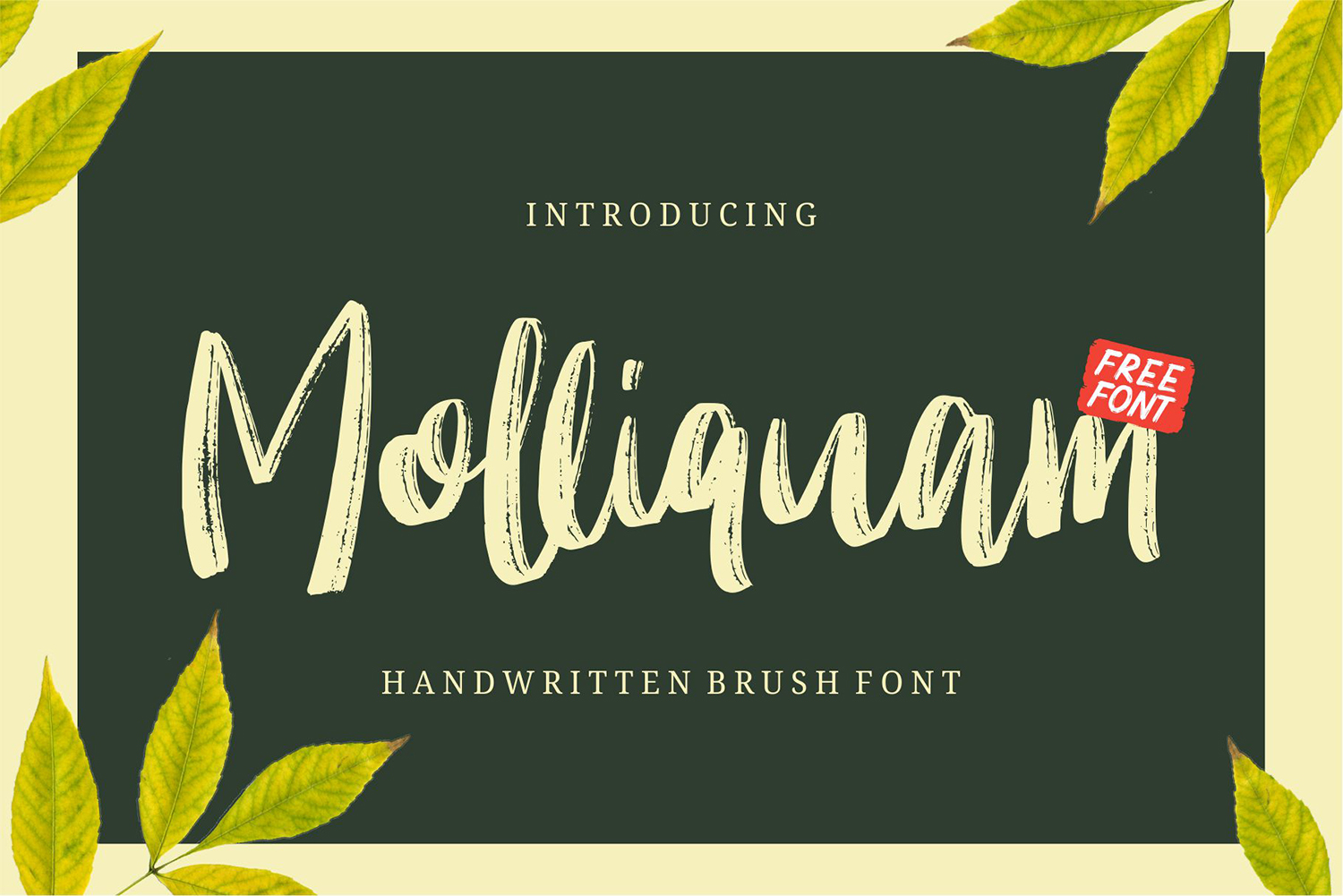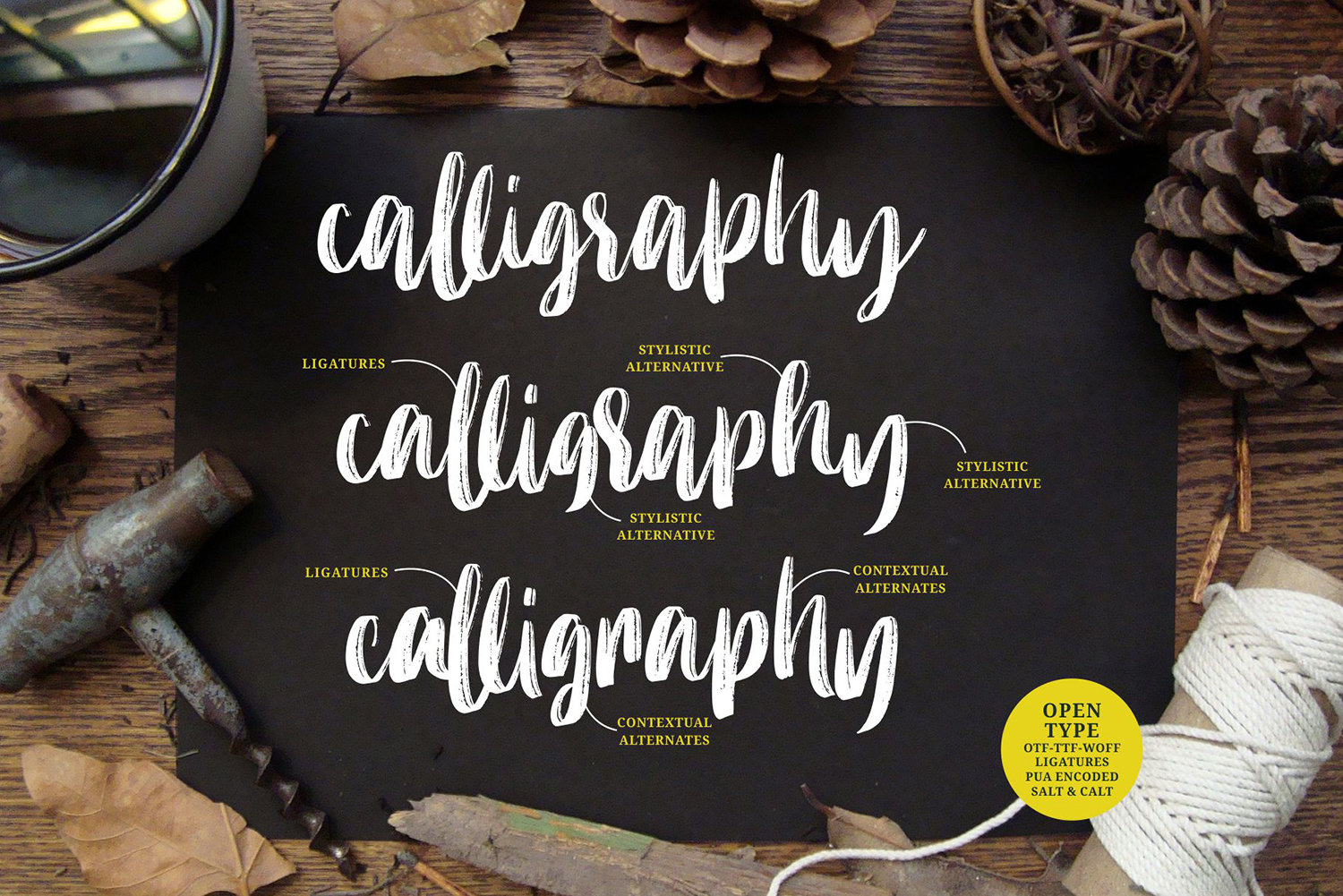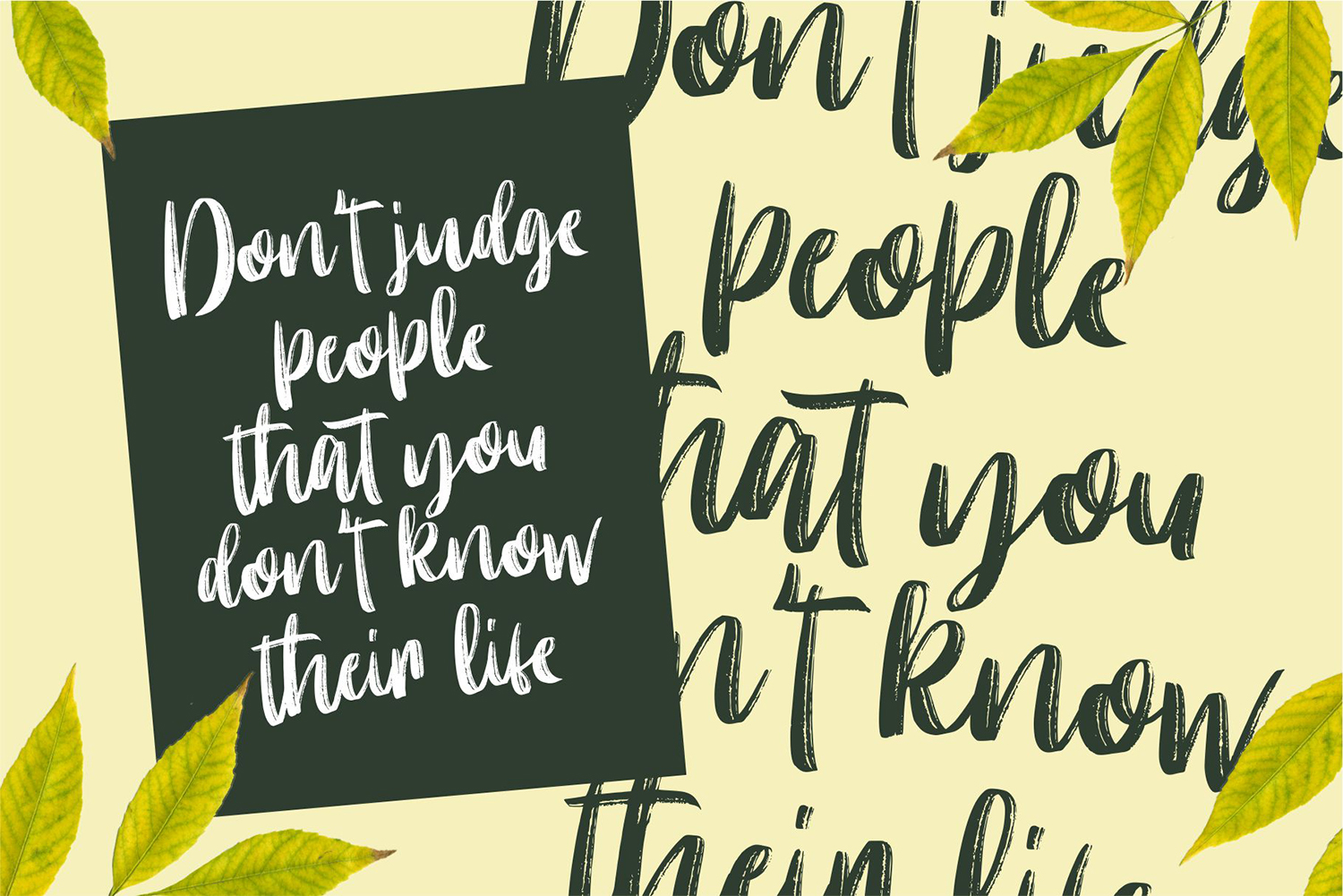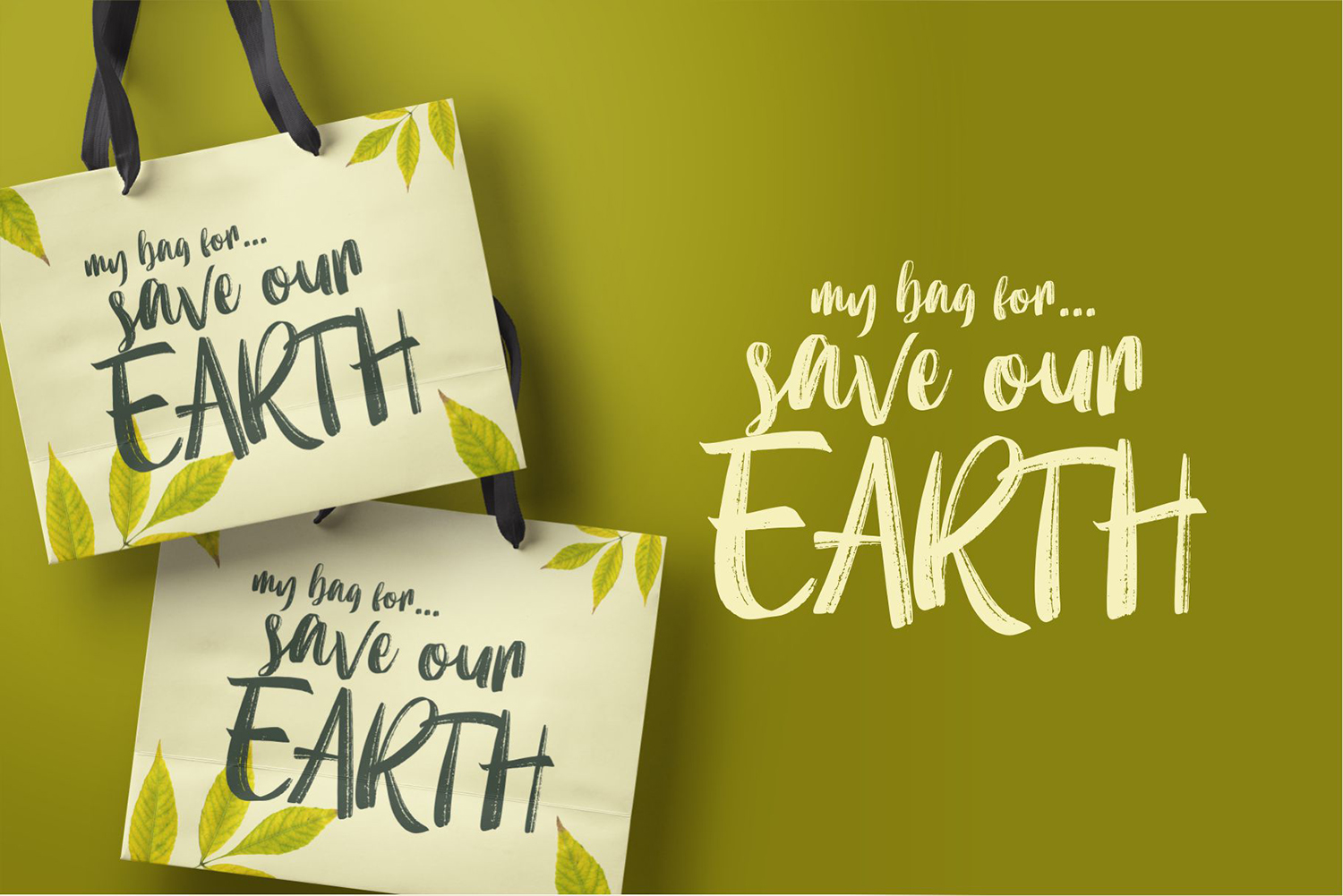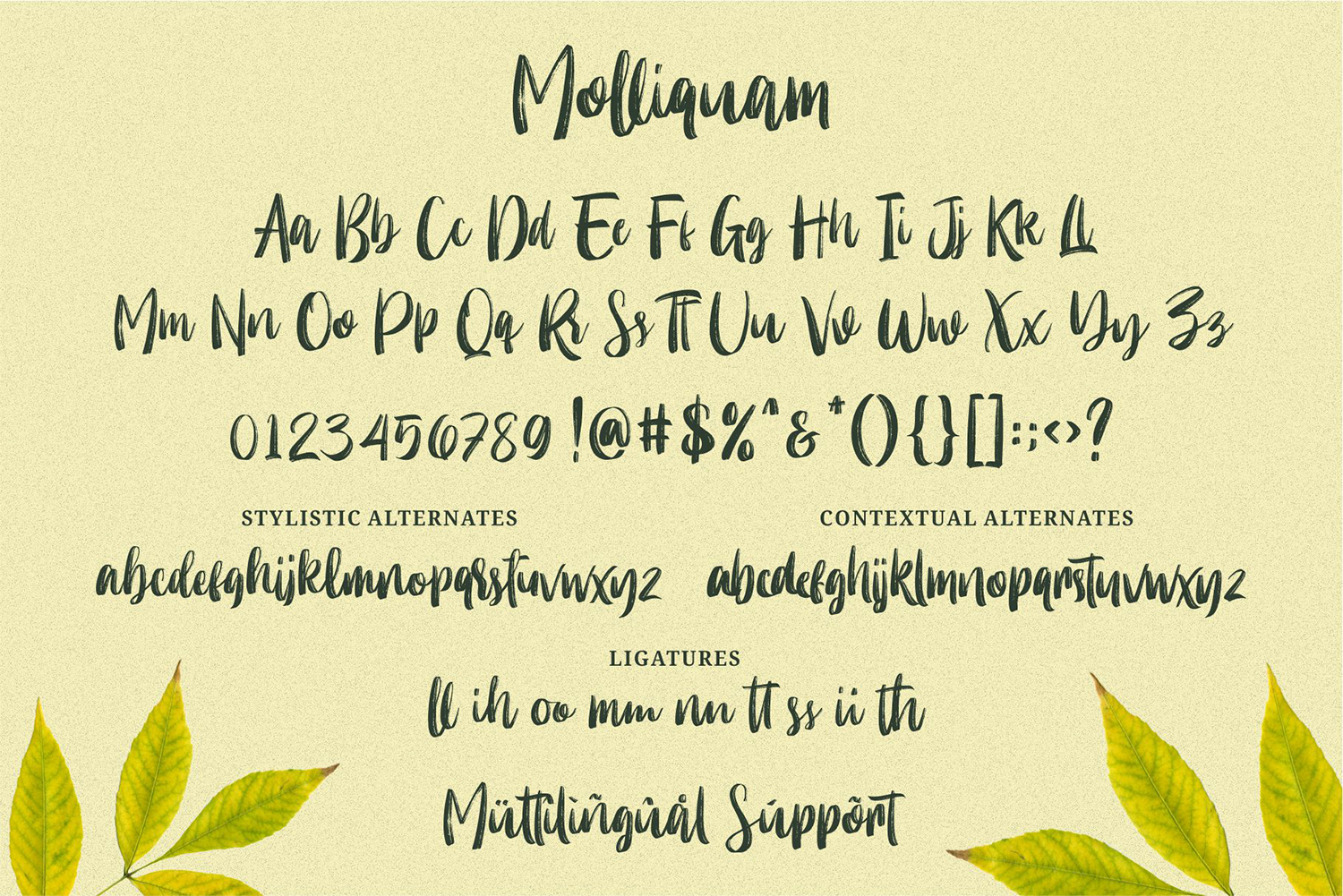
Molliquam Free Font
Molliquam Free Font is an interesting handwritten font that simulates writing with a brush. This font features elegant curves and is perfect for a variety of design projects such as posters, postcards, flyers, prints, and more. If you wish to access more features and use them for commercial work please buy the full version.
Author: Garisman Studio